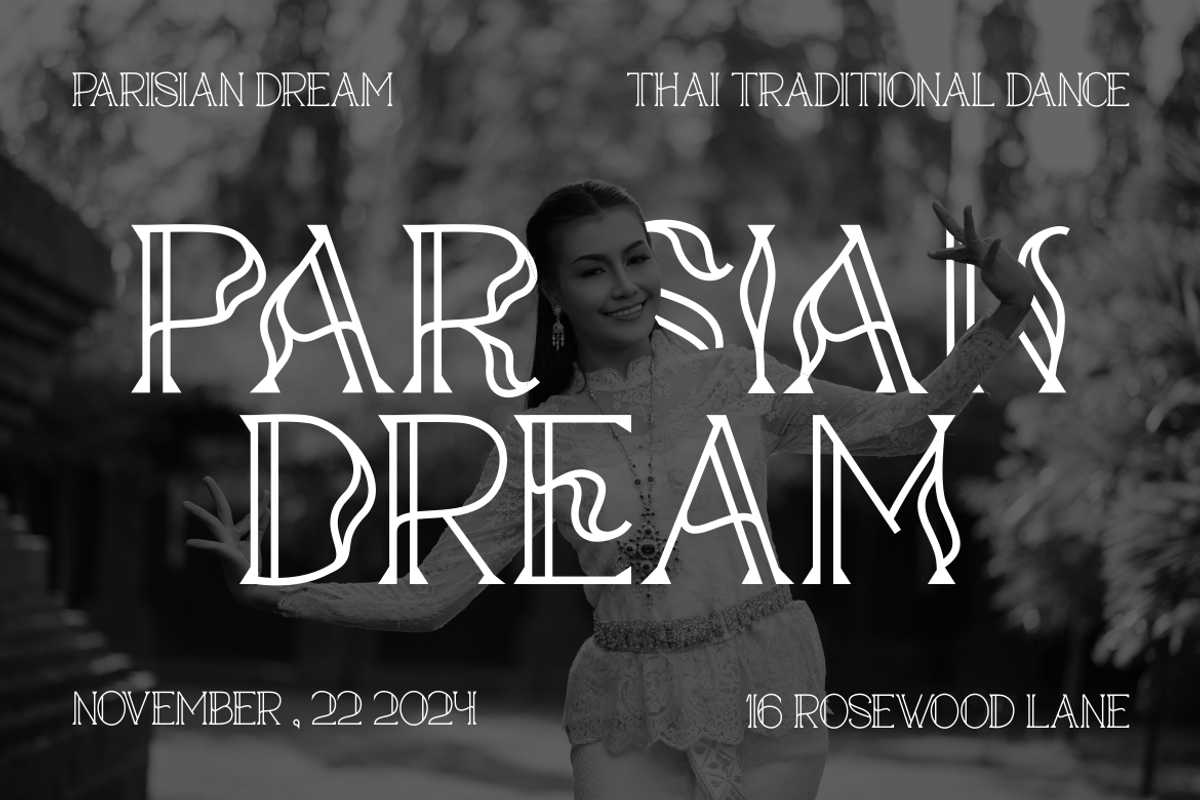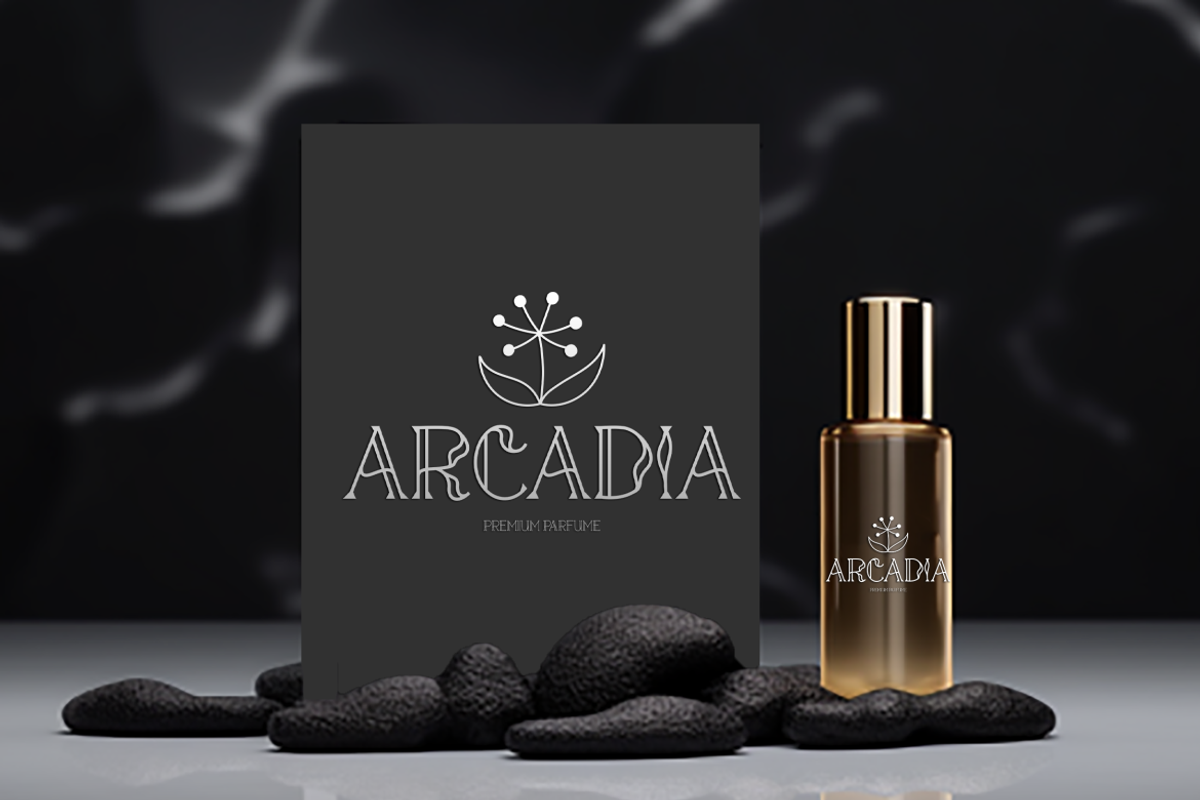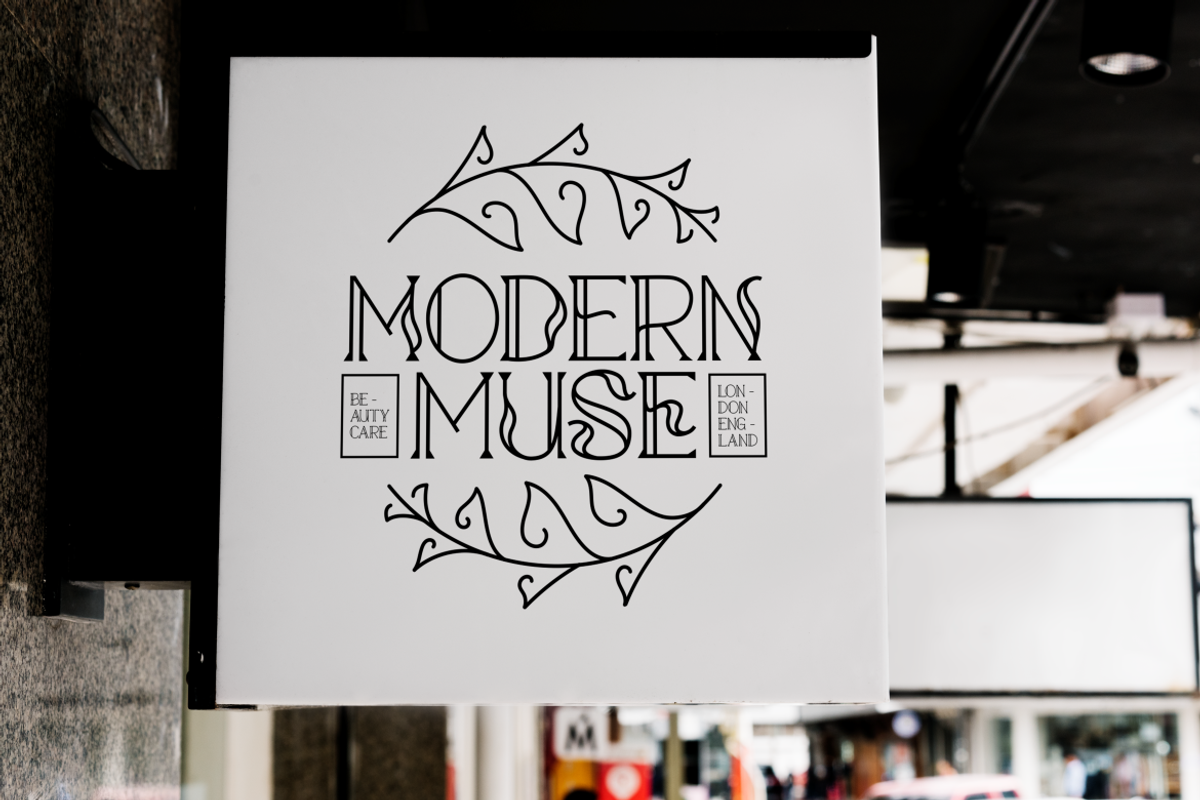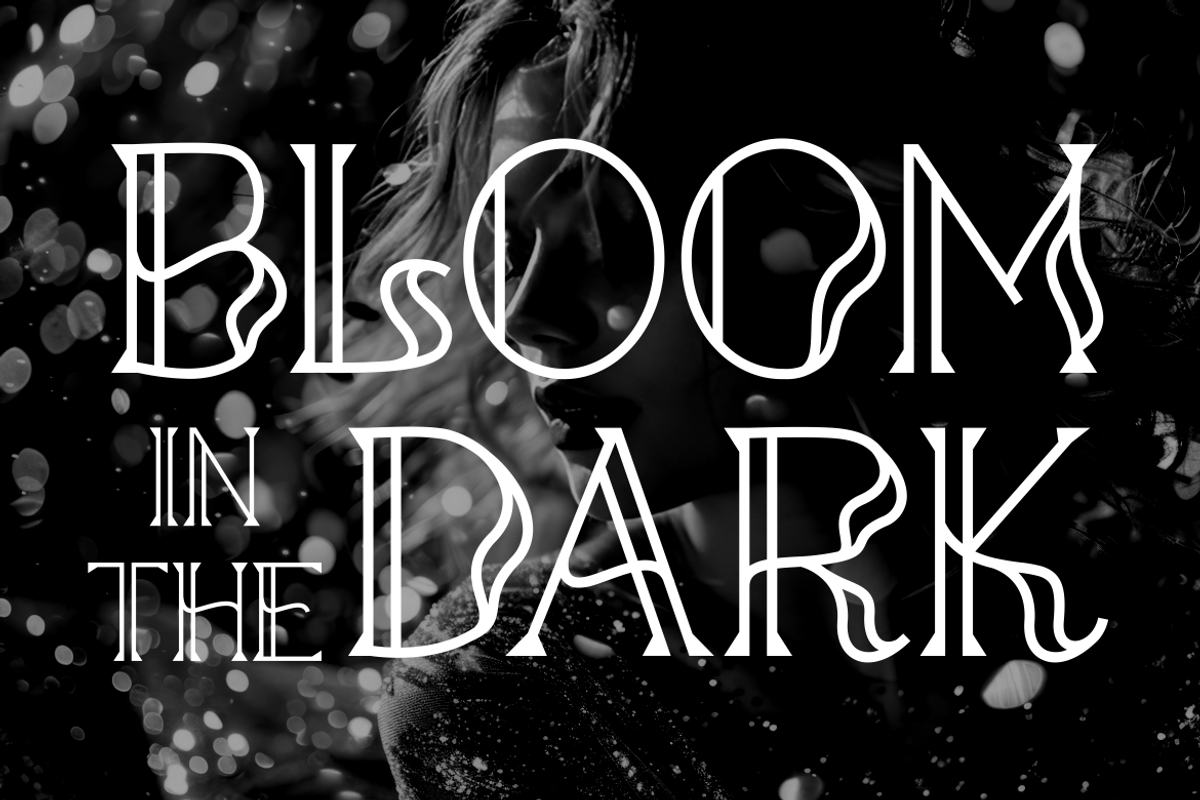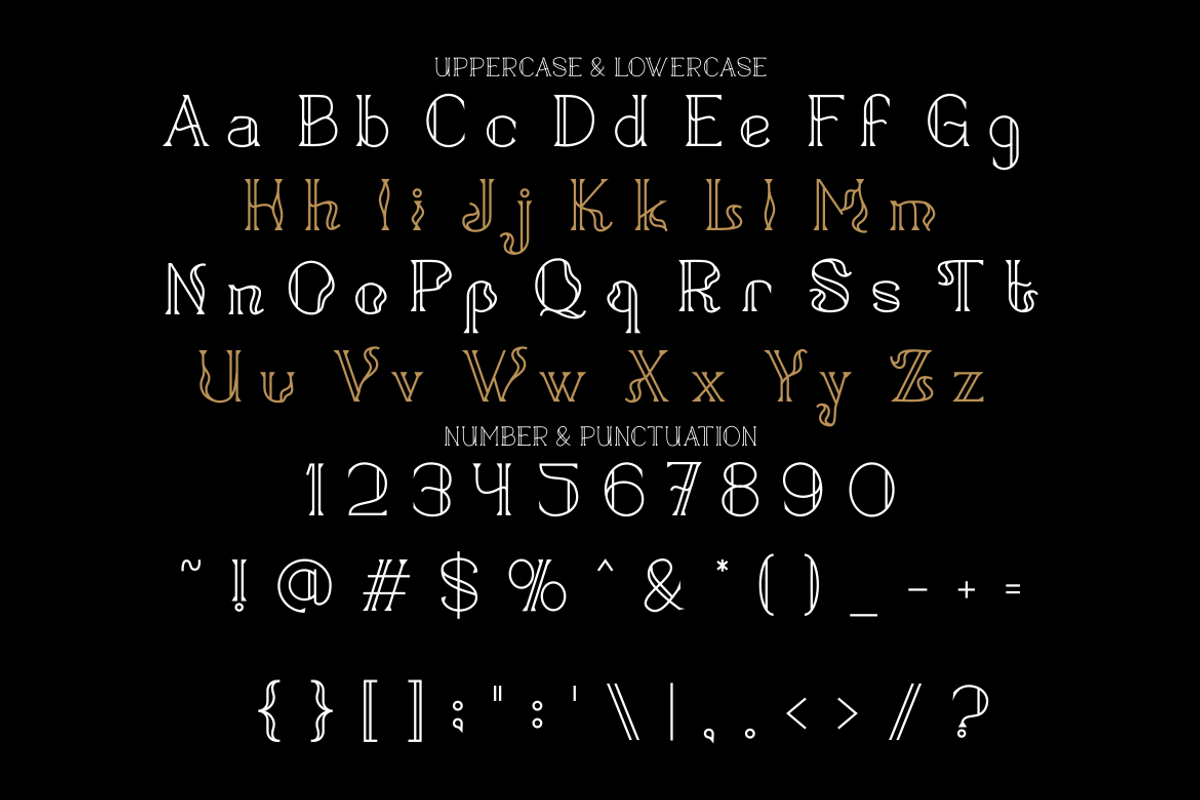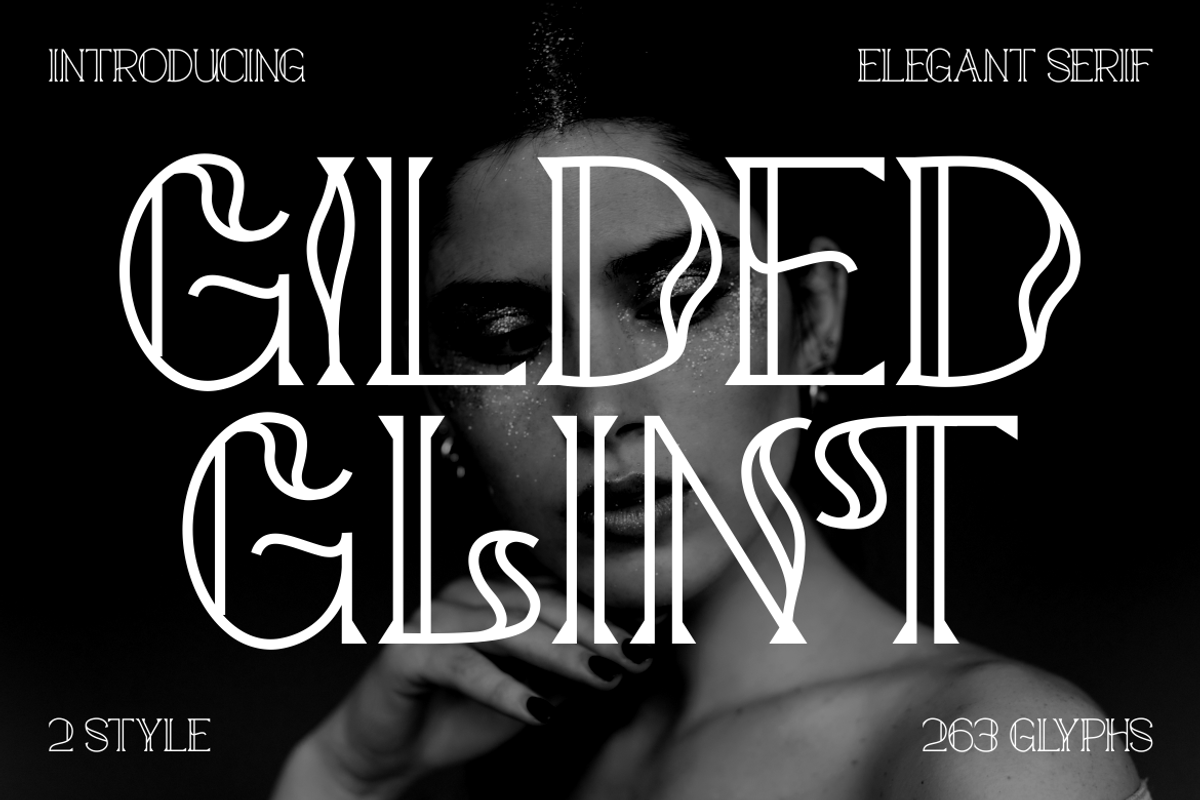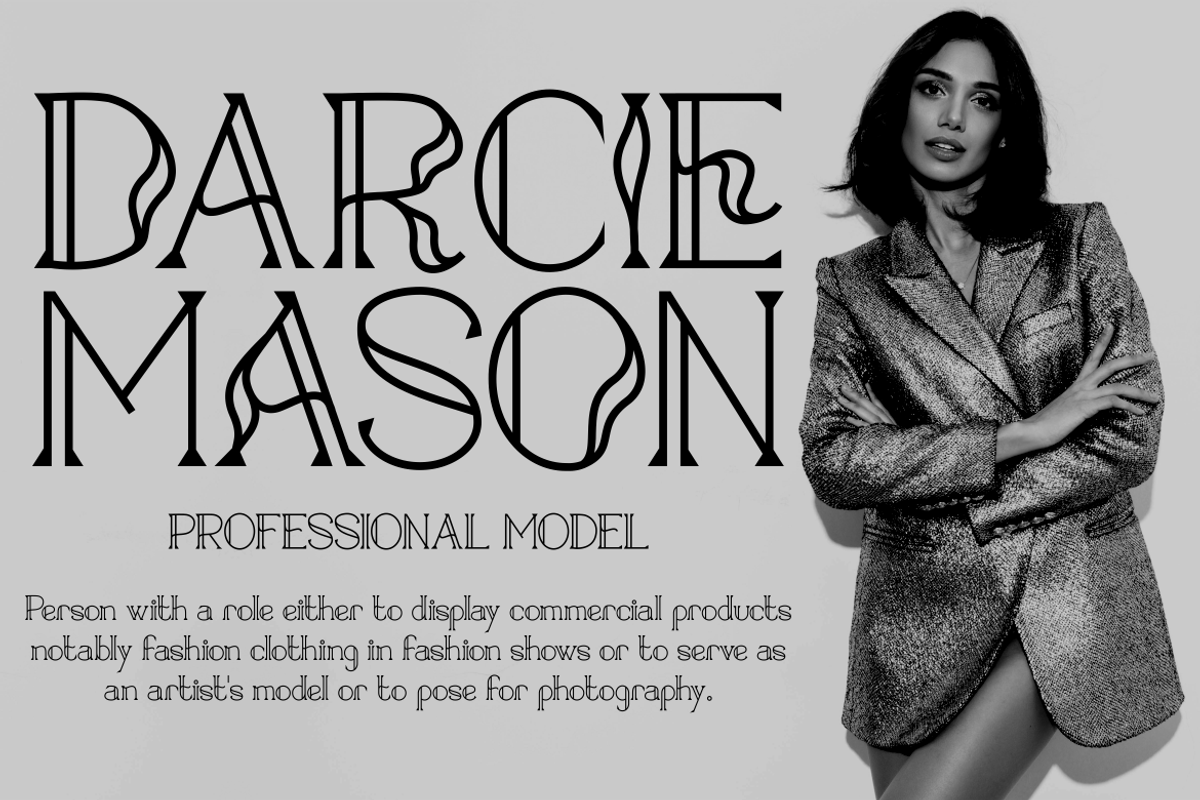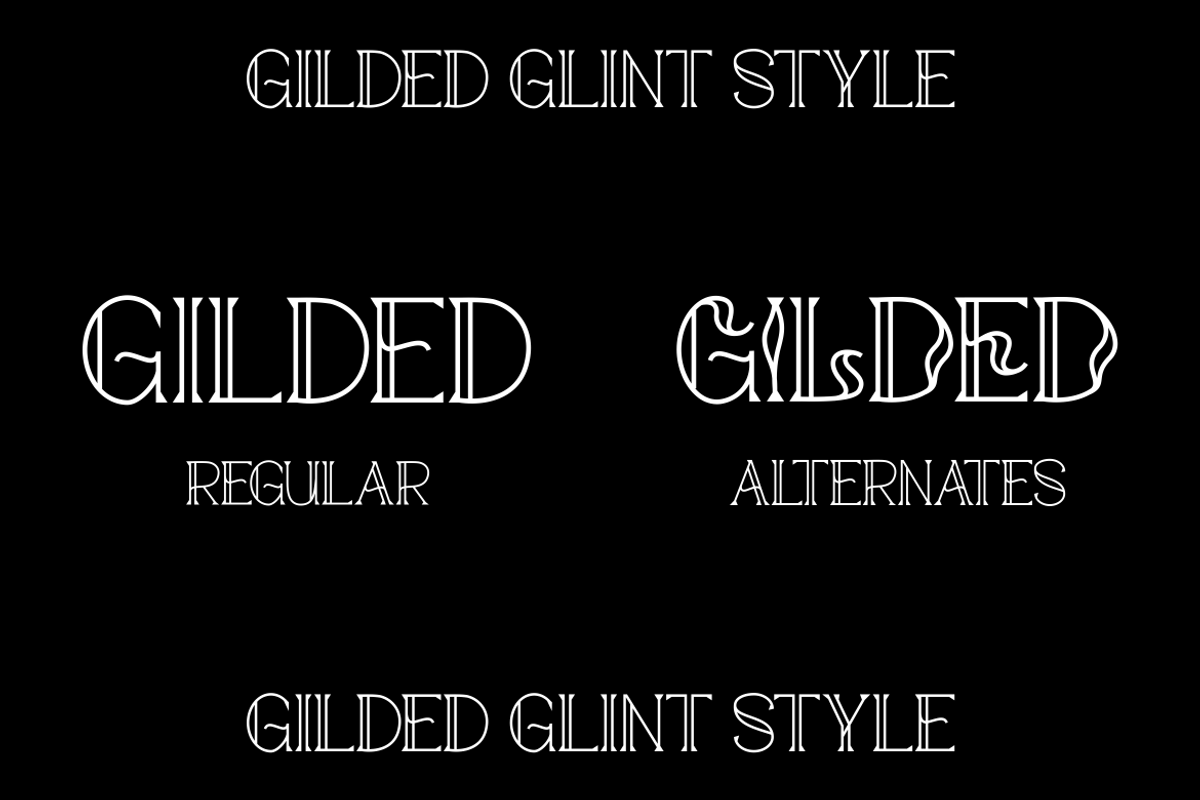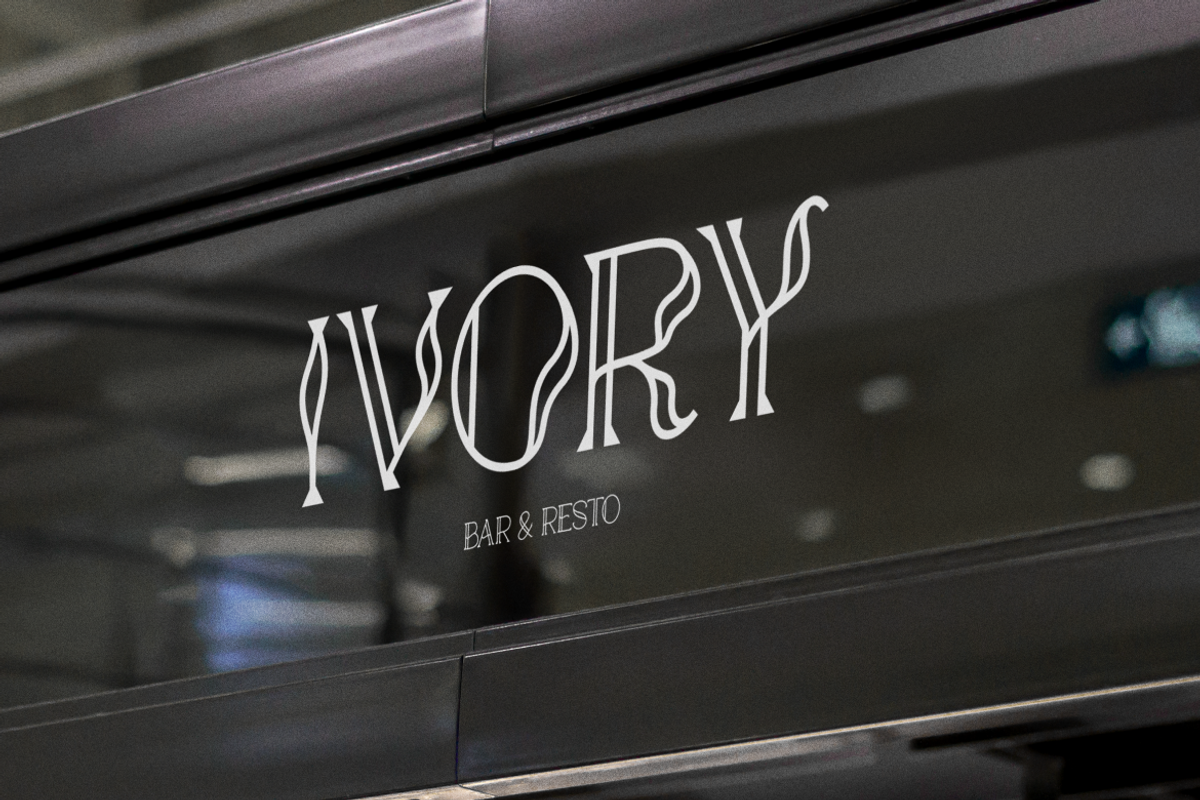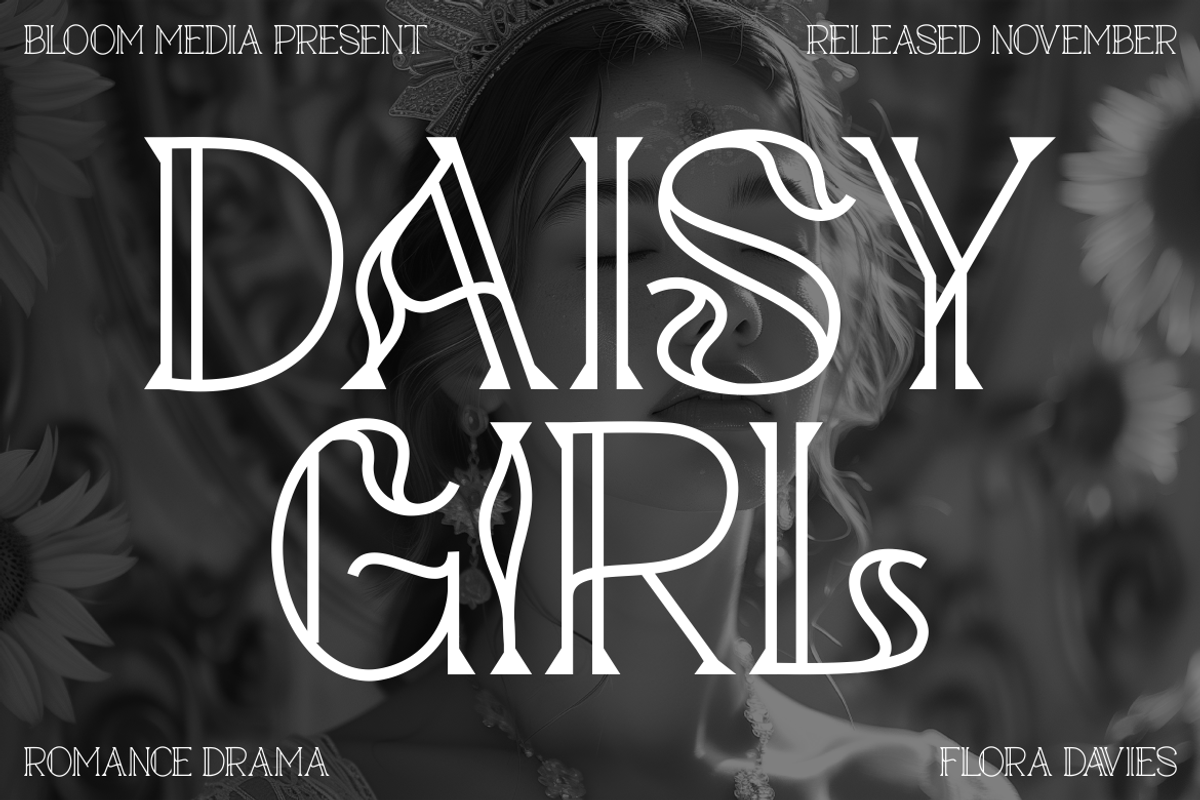
Gilded Glint - Elegant Serif Font
Introducing Gilded Glint, a striking and sophisticated elegant serif font designed to infuse your projects with modern luxury and refined charm. The font features uniquely curved and flowing elements that blend seamlessly with sharp, geometric serifs, creating a harmonious balance of elegance and boldness. Each glyph showcases meticulously crafted details with a contemporary twist, making it a perfect choice for captivating display typography. This font comes with two distinct styles and 263 glyphs, offering flexibility and uniqueness for creative expression.
The elegant strokes and decorative curves of Gilded Glint make it an exceptional option for logo design, branding, packaging, and high-end fashion projects. Its graceful yet artistic form lends a distinctive flair to wedding invitations, book covers, movie titles, and editorial layouts. Whether you're working on luxurious branding or a dramatic headline, this serif font delivers sophistication with every letter. Enhance your designs with the timeless beauty of Gilded Glint and let your creativity shine with a font that speaks elegance, style, and modernity.